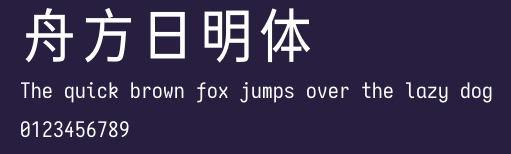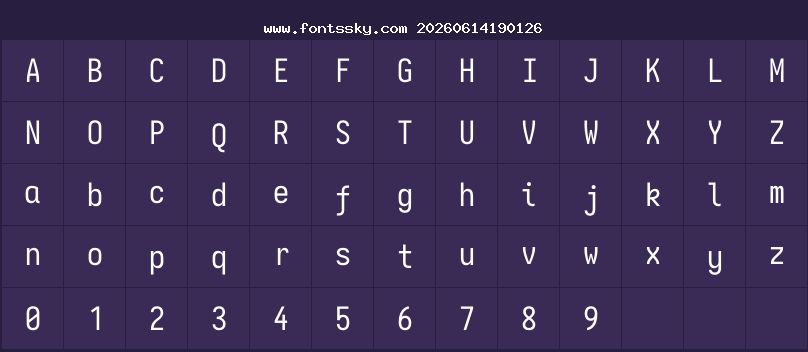
舟方日明体 Preview
• Font Name: 舟方日明体
• Font Style: 常规
• Full Font Name: 舟方日明 不斜
• Character Count: 33290
• Description: 1.https://github.com/welai Glow Sans SC Condensed Book 0.91 © 2020 Project Welai 2.http://be5invis.github.io/Iosevka Fixed Curly Regular 4.0.3 © Belleve Invis. 2015-2020
About 舟方日明体.otf
舟方日明体.otf is a modern, elegant sans-serif font designed for ultimate readability and visual harmony. Perfect for branding, headlines, web design, and print materials.